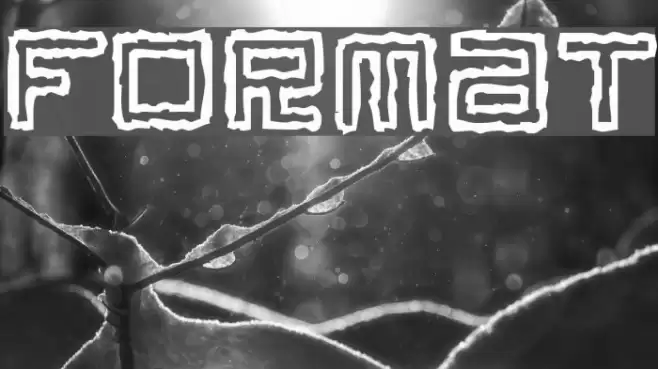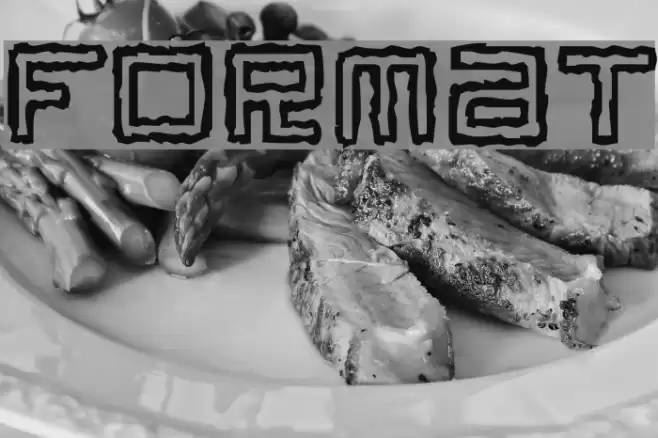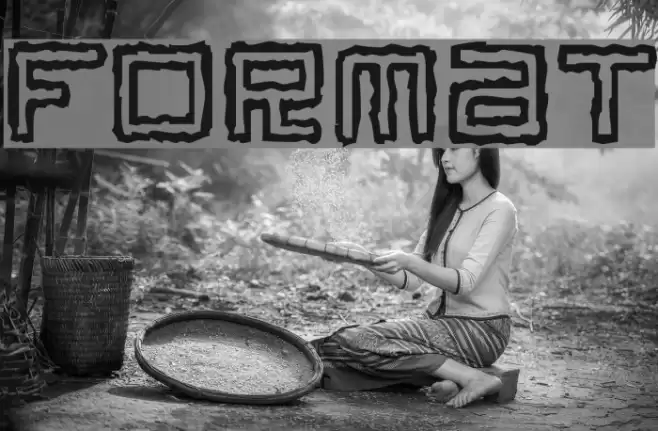
Format Font
Format Description
This font features a unique, rugged design with a hand-drawn appearance. The characters are outlined with a bold, irregular stroke that gives them a textured, almost distressed look. The uppercase and lowercase letters maintain a consistent style, with each character exhibiting a playful yet structured form. The numbers and special characters follow the same design principles, ensuring a cohesive appearance across all elements. This font's distinctive style makes it stand out, offering a creative and artistic flair.
A rugged, hand-drawn font with bold, textured outlines from Dingbats fonts.
- Proposed Projects: Ideal for creative projects such as posters, album covers, and branding materials that require a bold, artistic touch.